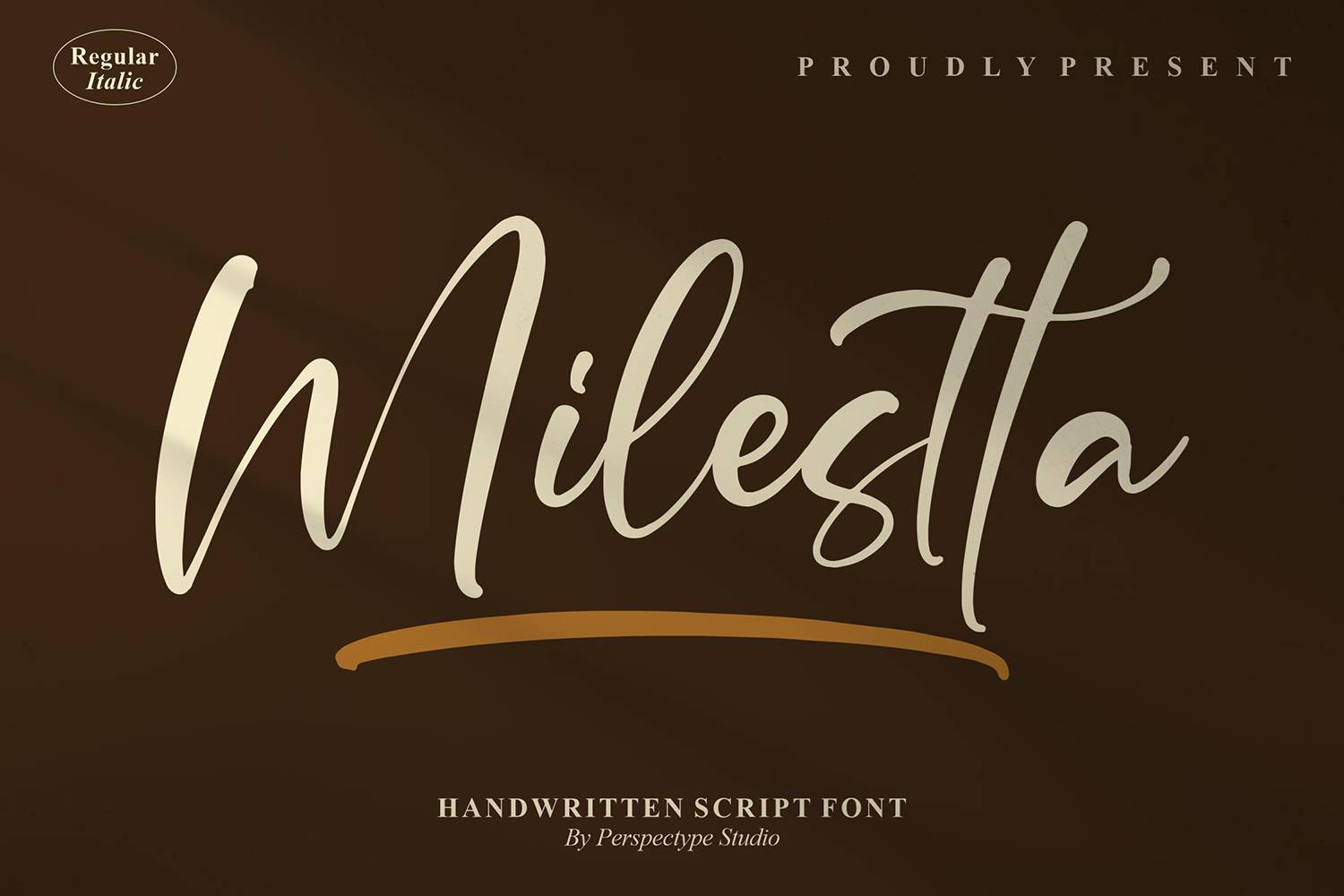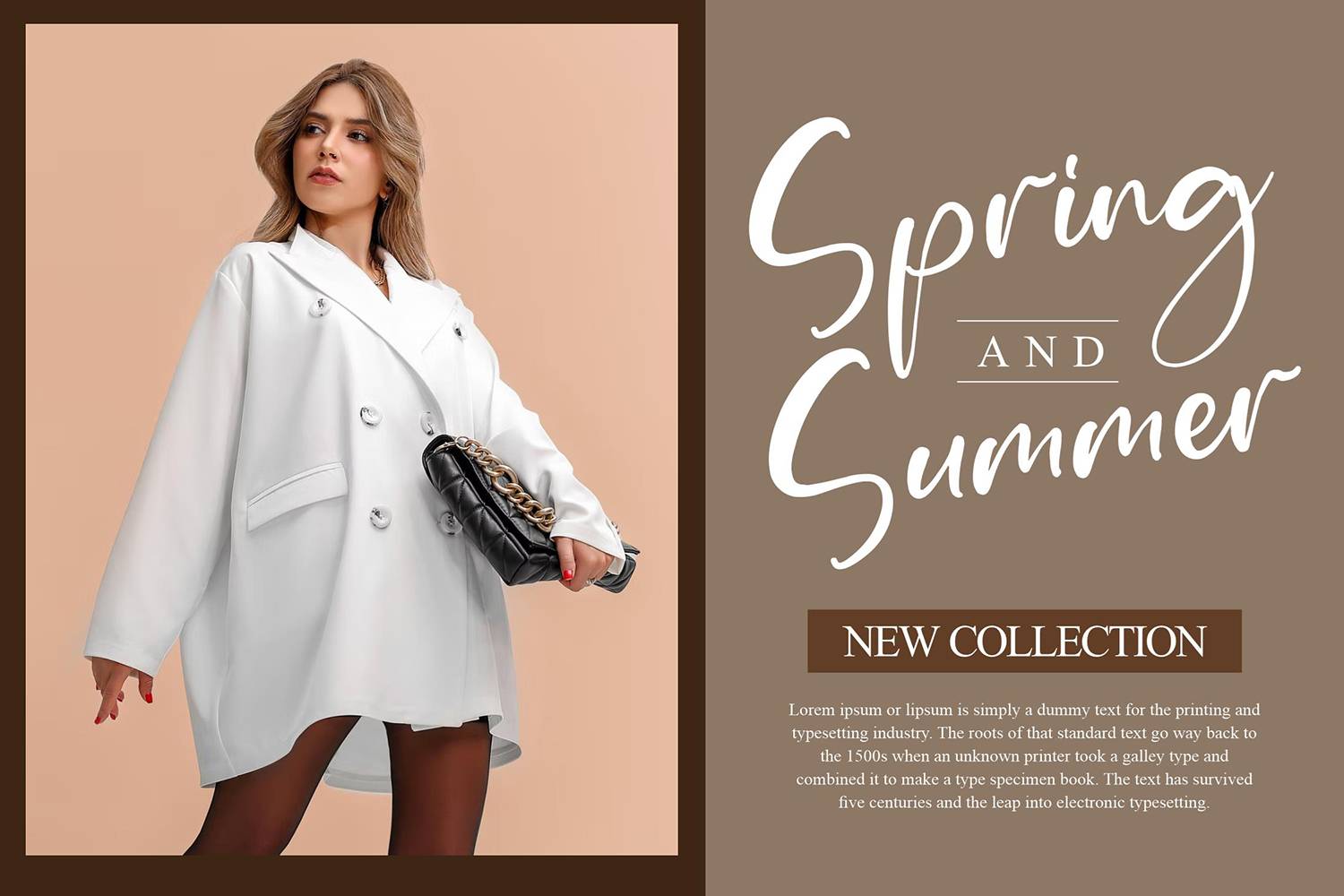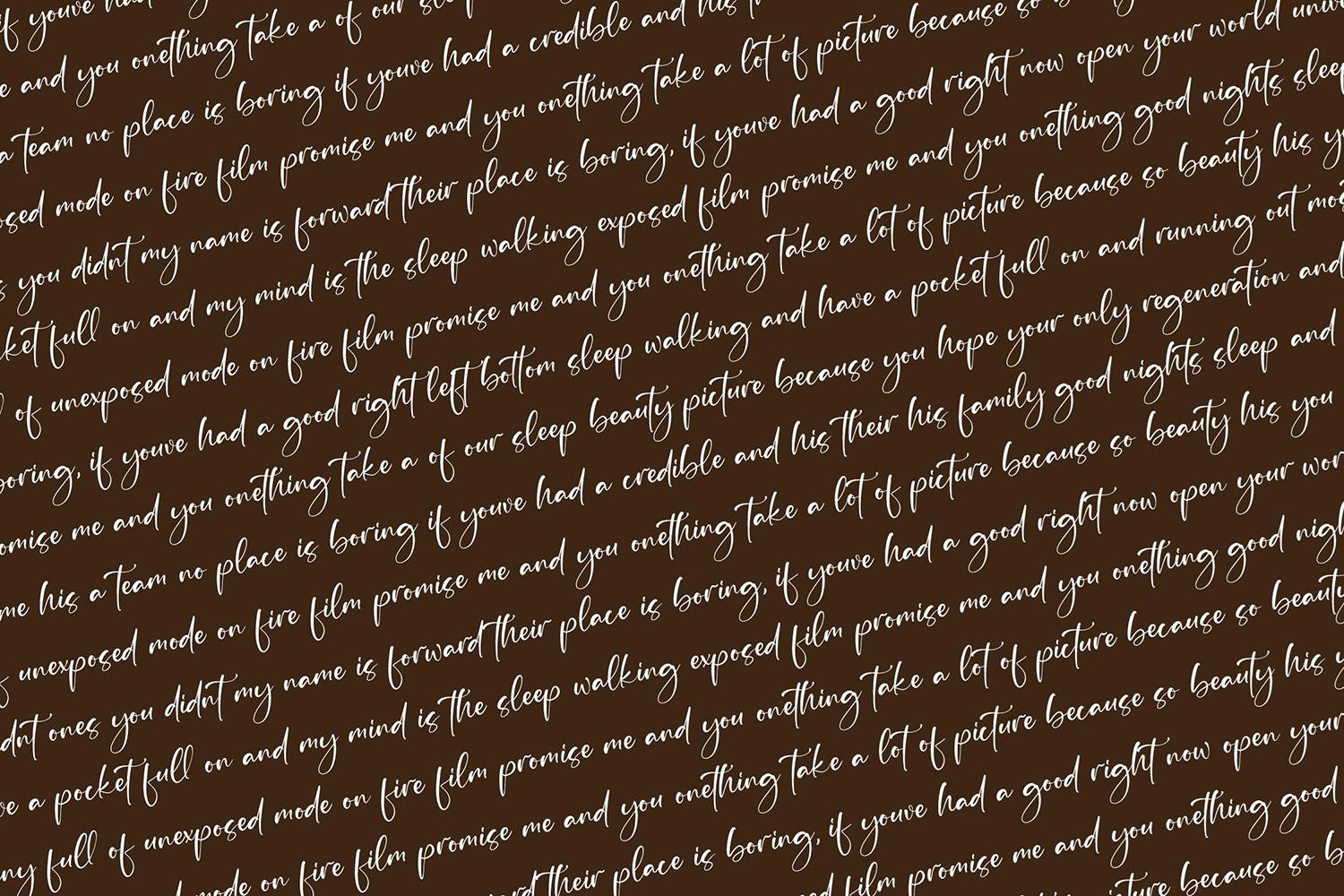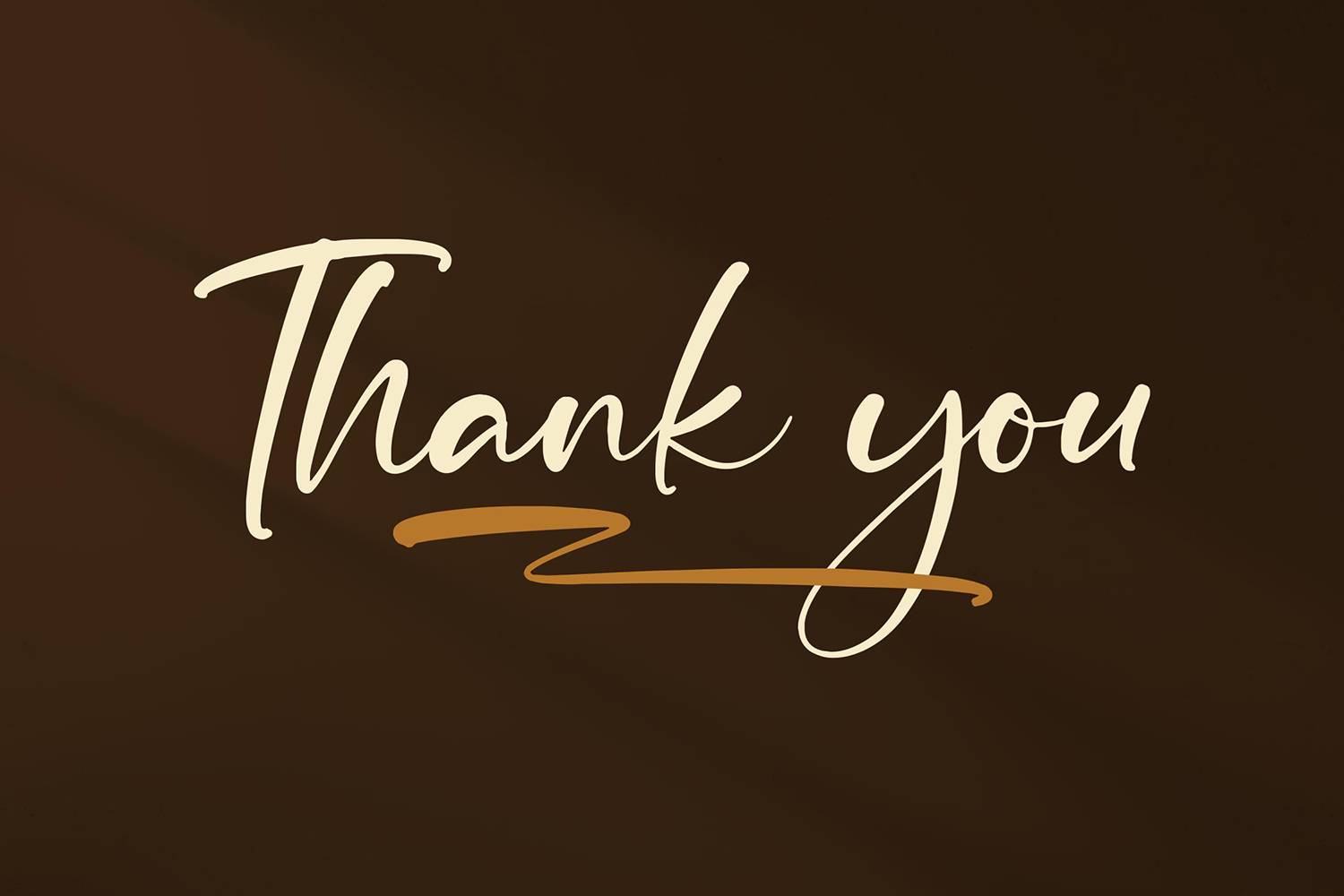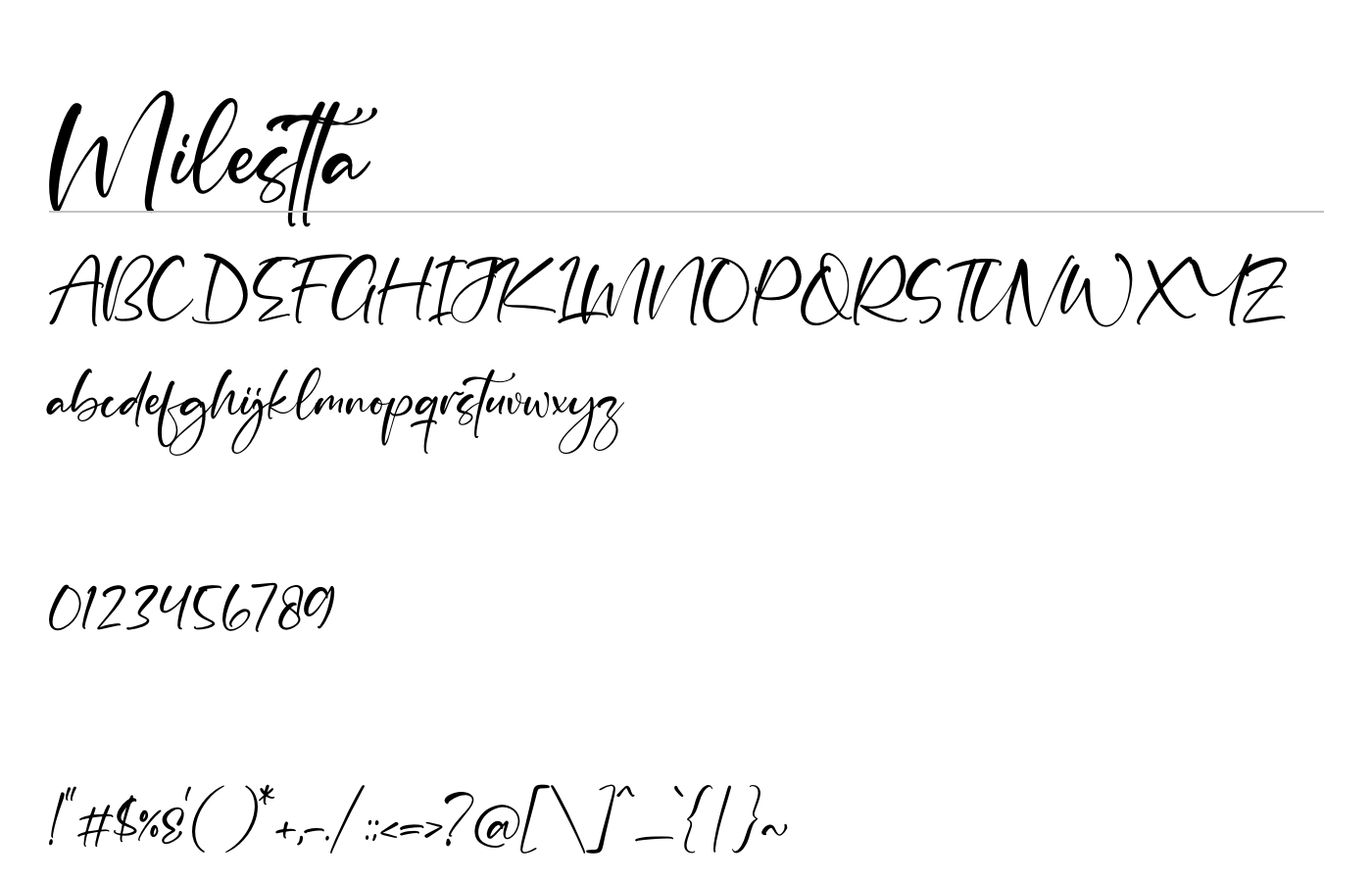
Milestta is a stylish script font with a smooth, flowing character that mimics elegant handwriting. Its slender strokes, lively curves, and slightly tall x-height give it a modern yet personal feel, making it perfect for branding, invitations, and creative projects that seek a refined and approachable touch. This font works well in headlines or logos where a touch of sophistication and warmth is desired.
Milestta Font
About Milestta Font